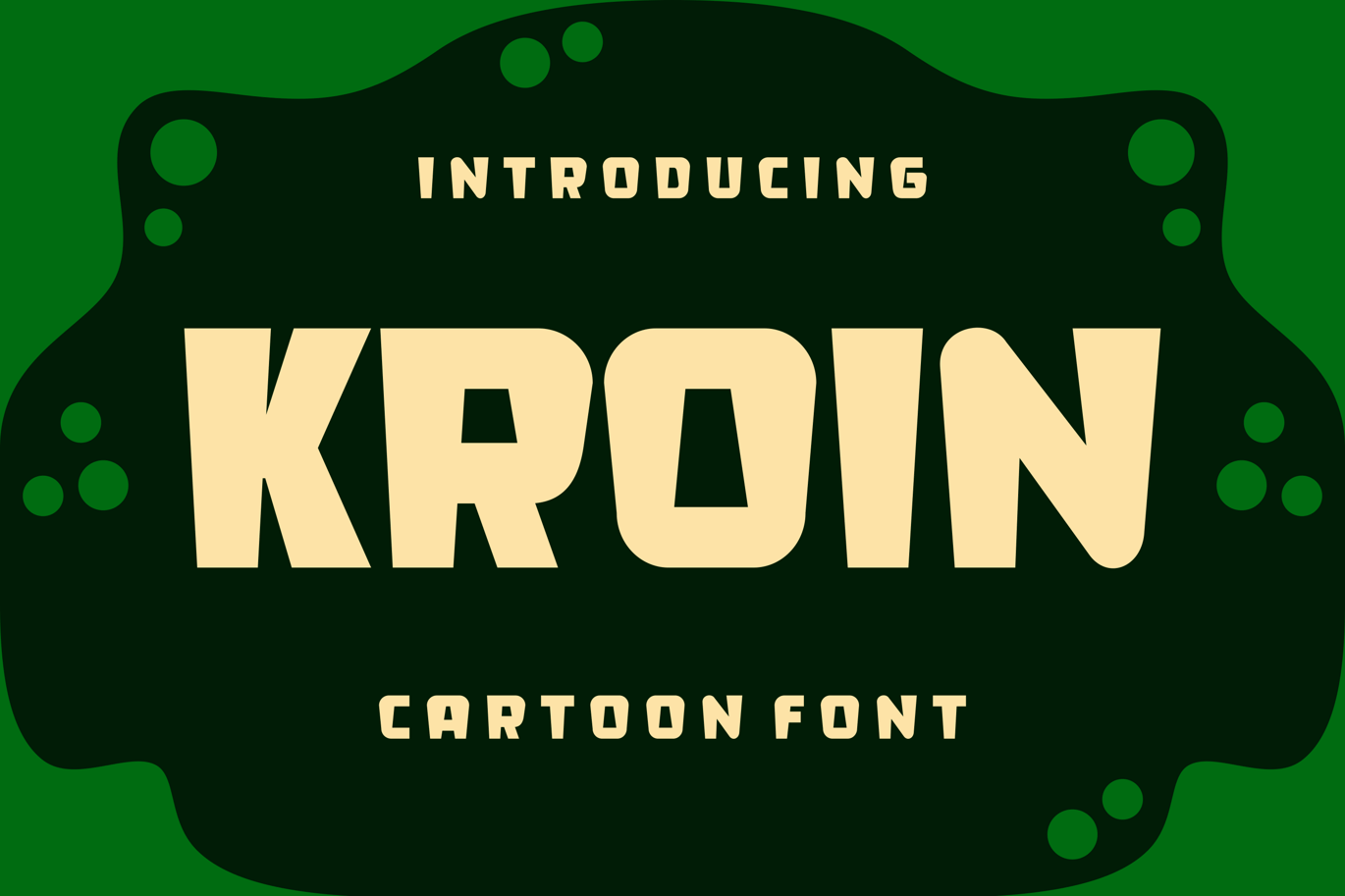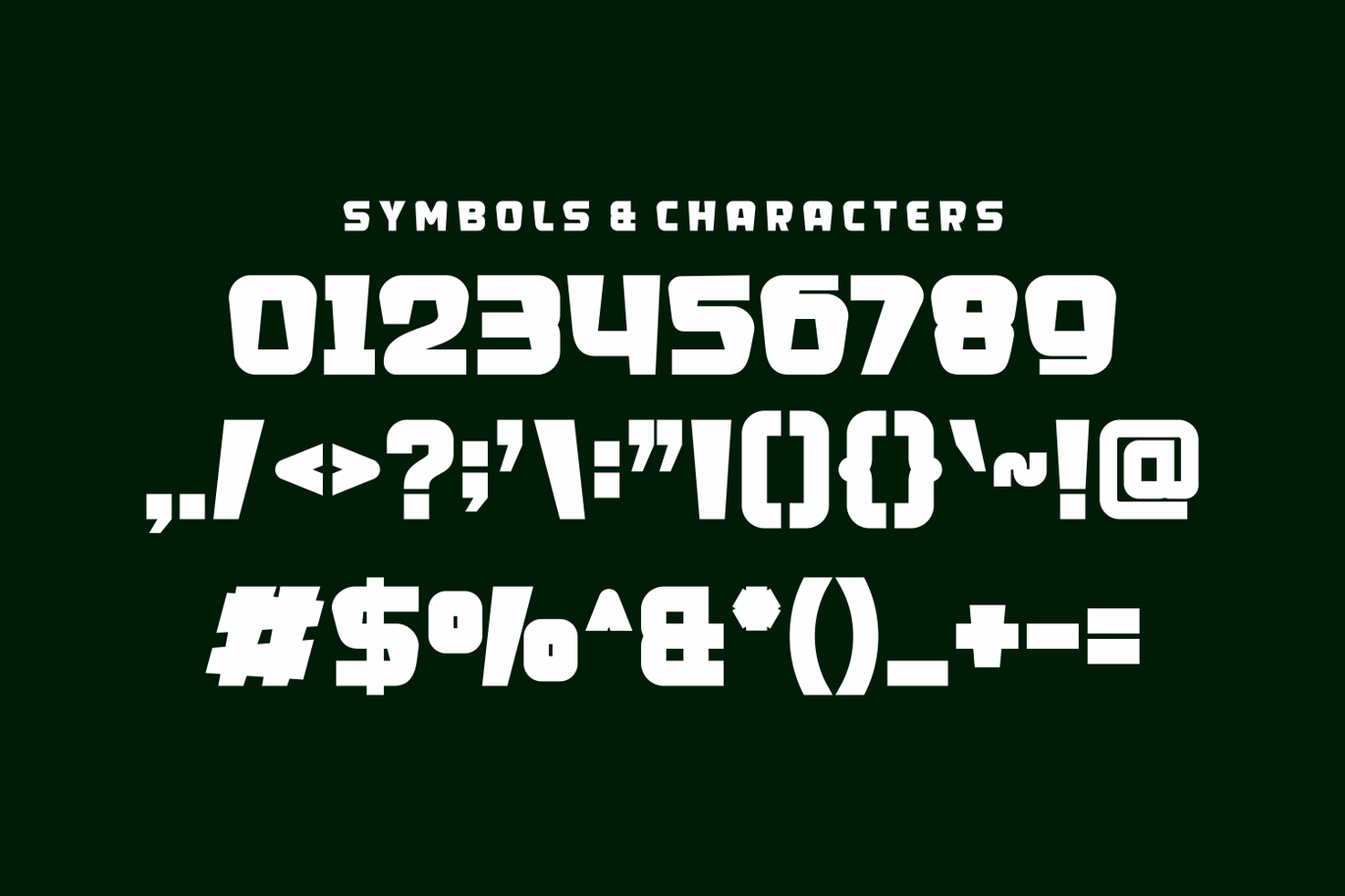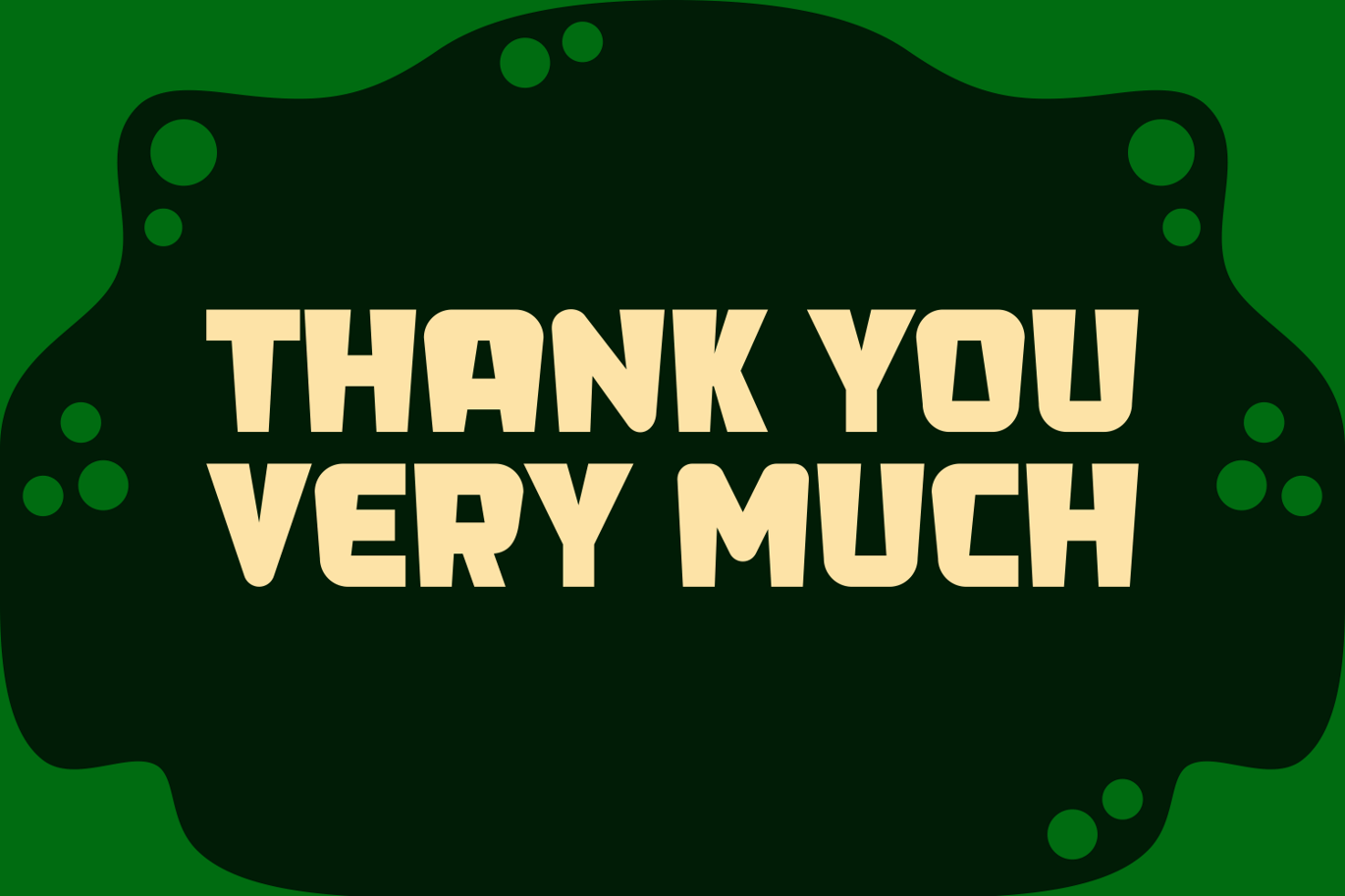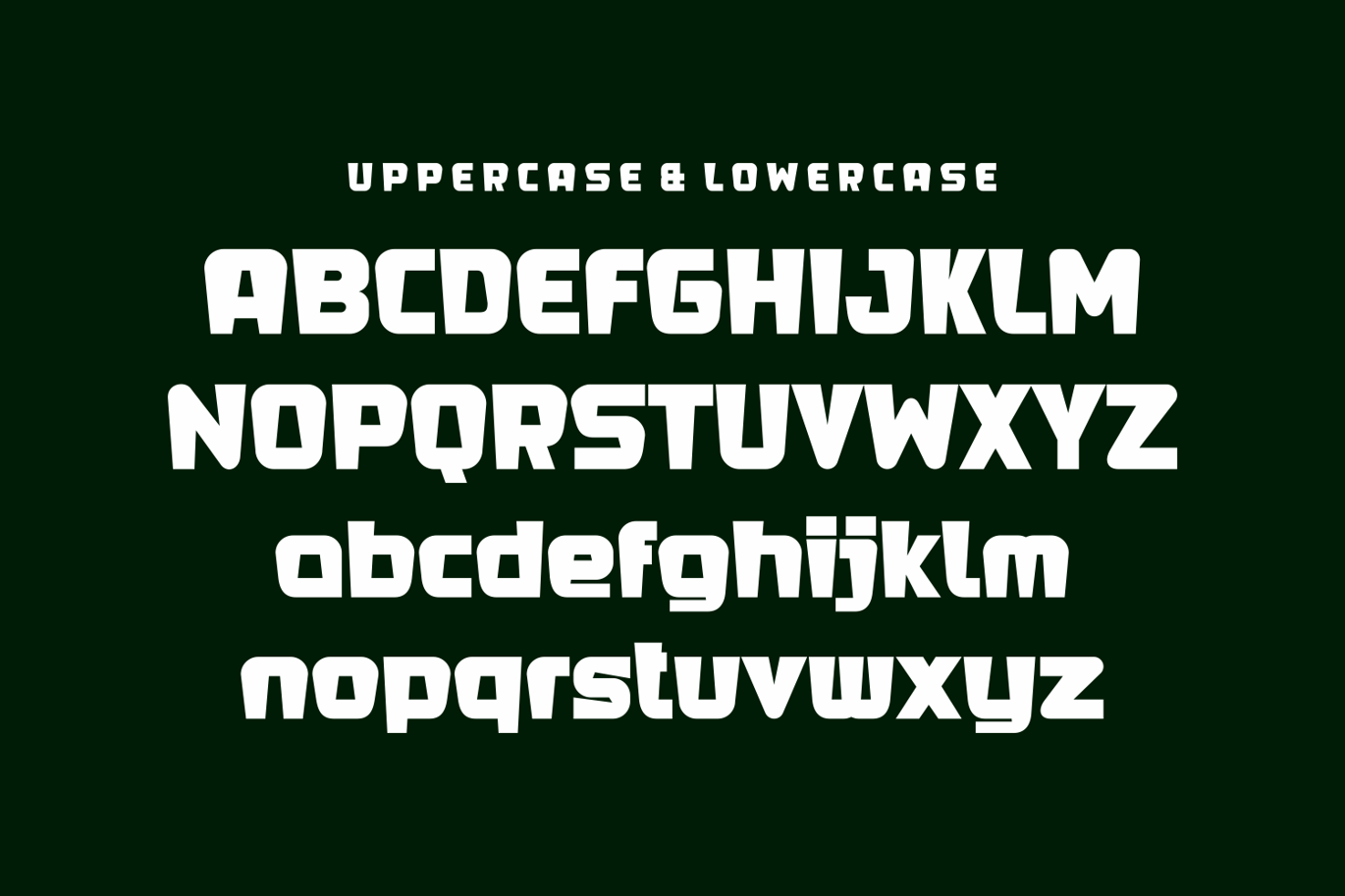
Kroin – Cartoon Font
Perfectly suited on print/screen. it’s perfect for Branding, name card, poster, logo, magazine,
cover, banner, t-shirt and headers, or even large-scale artwork.